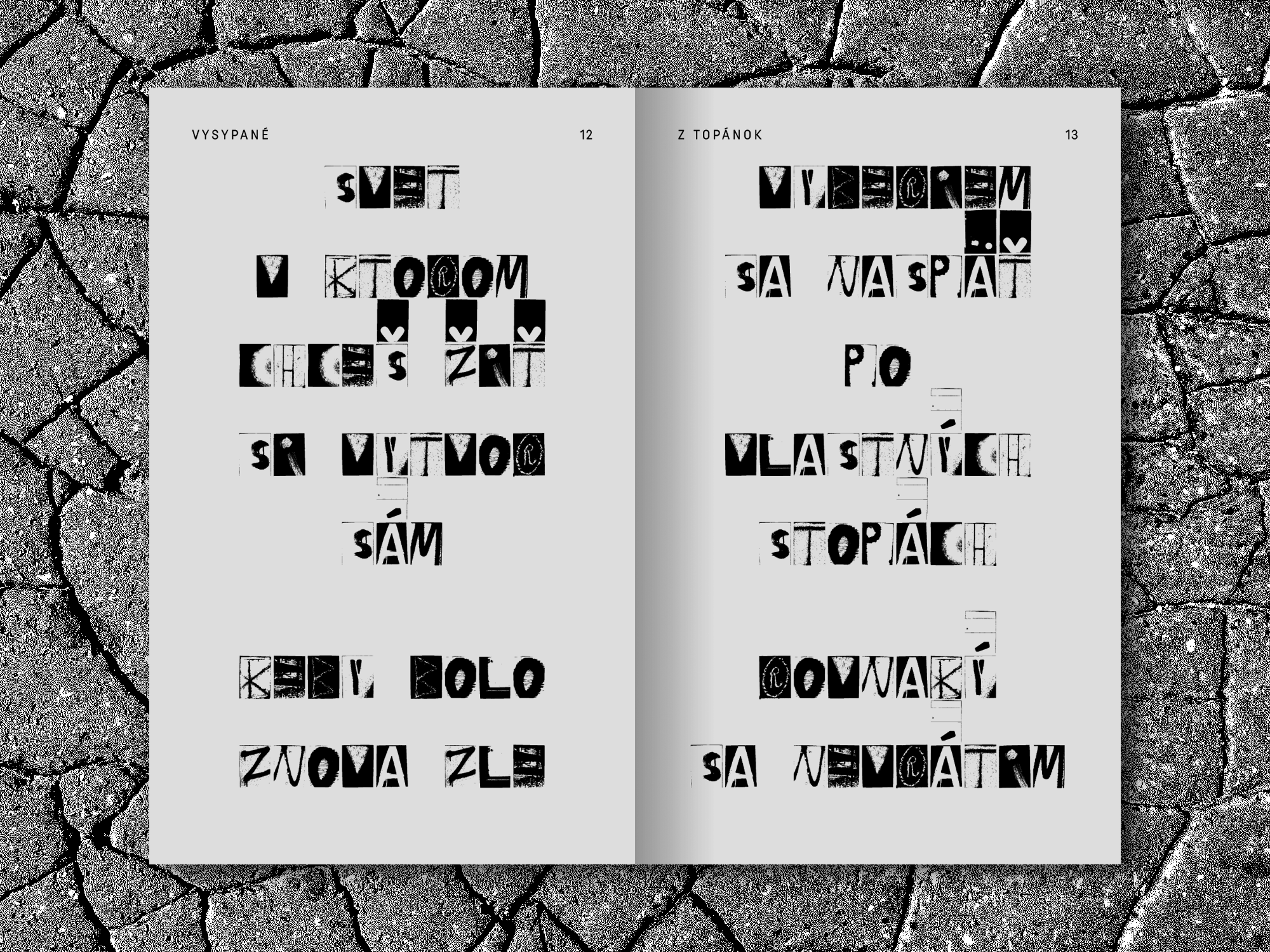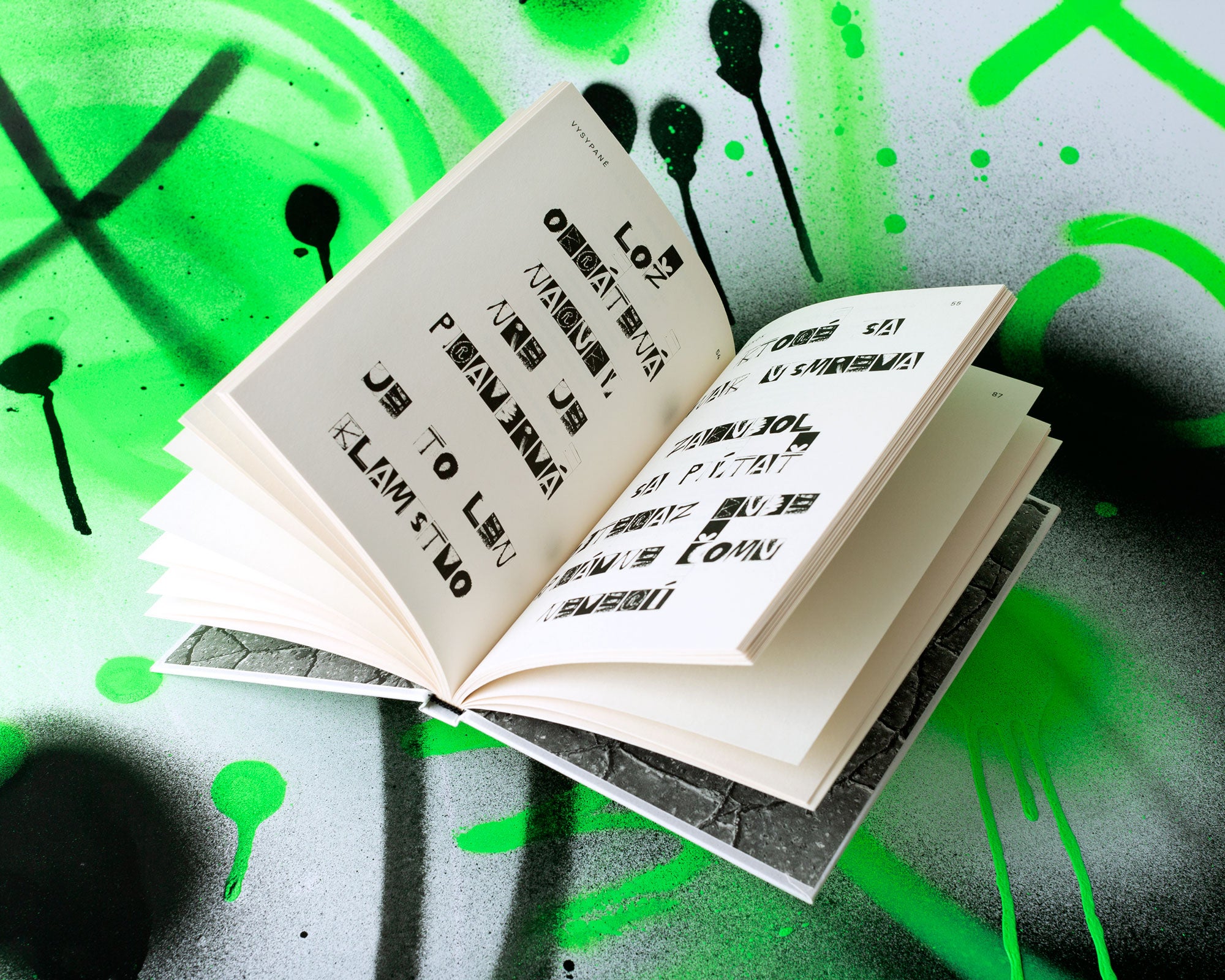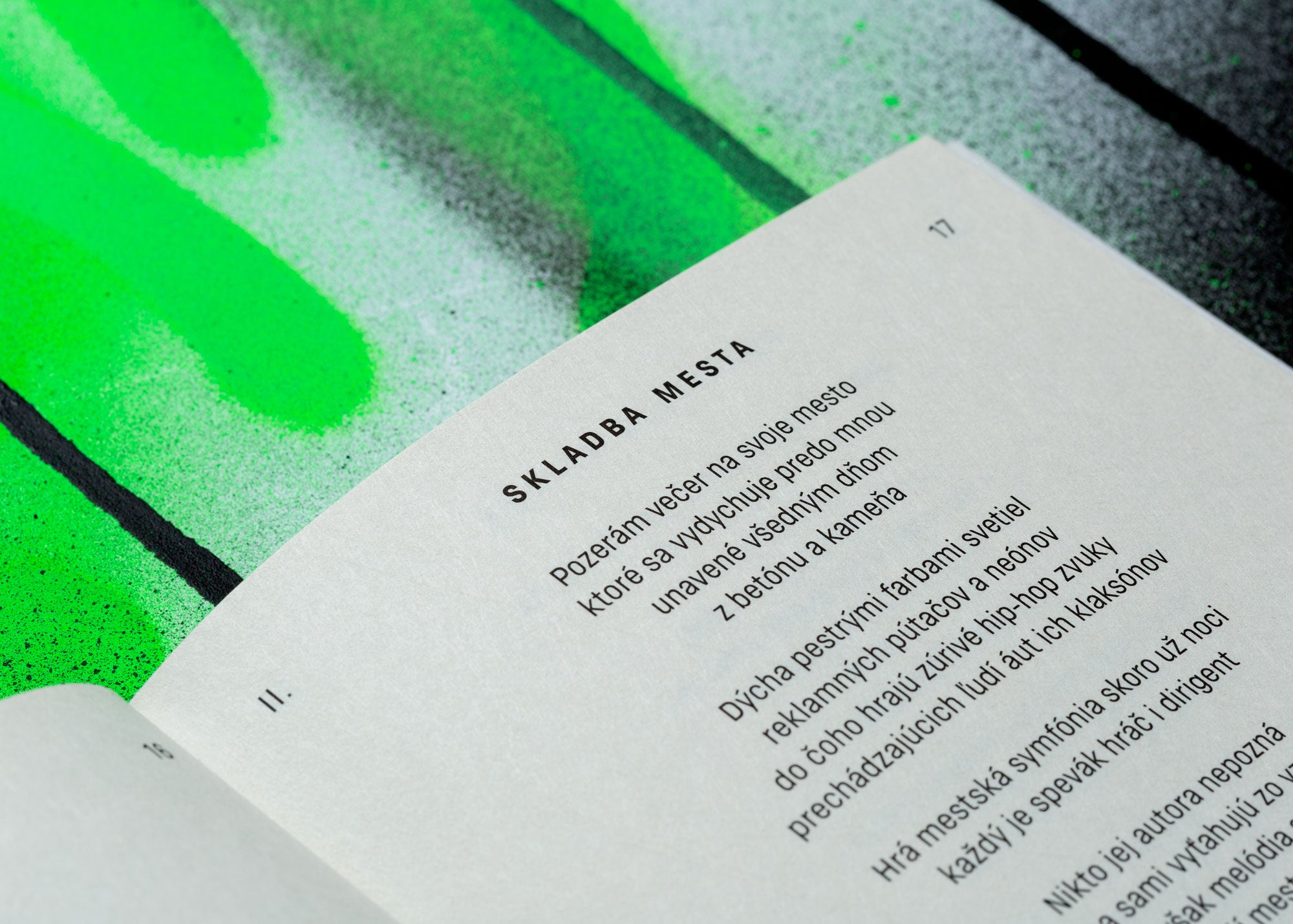
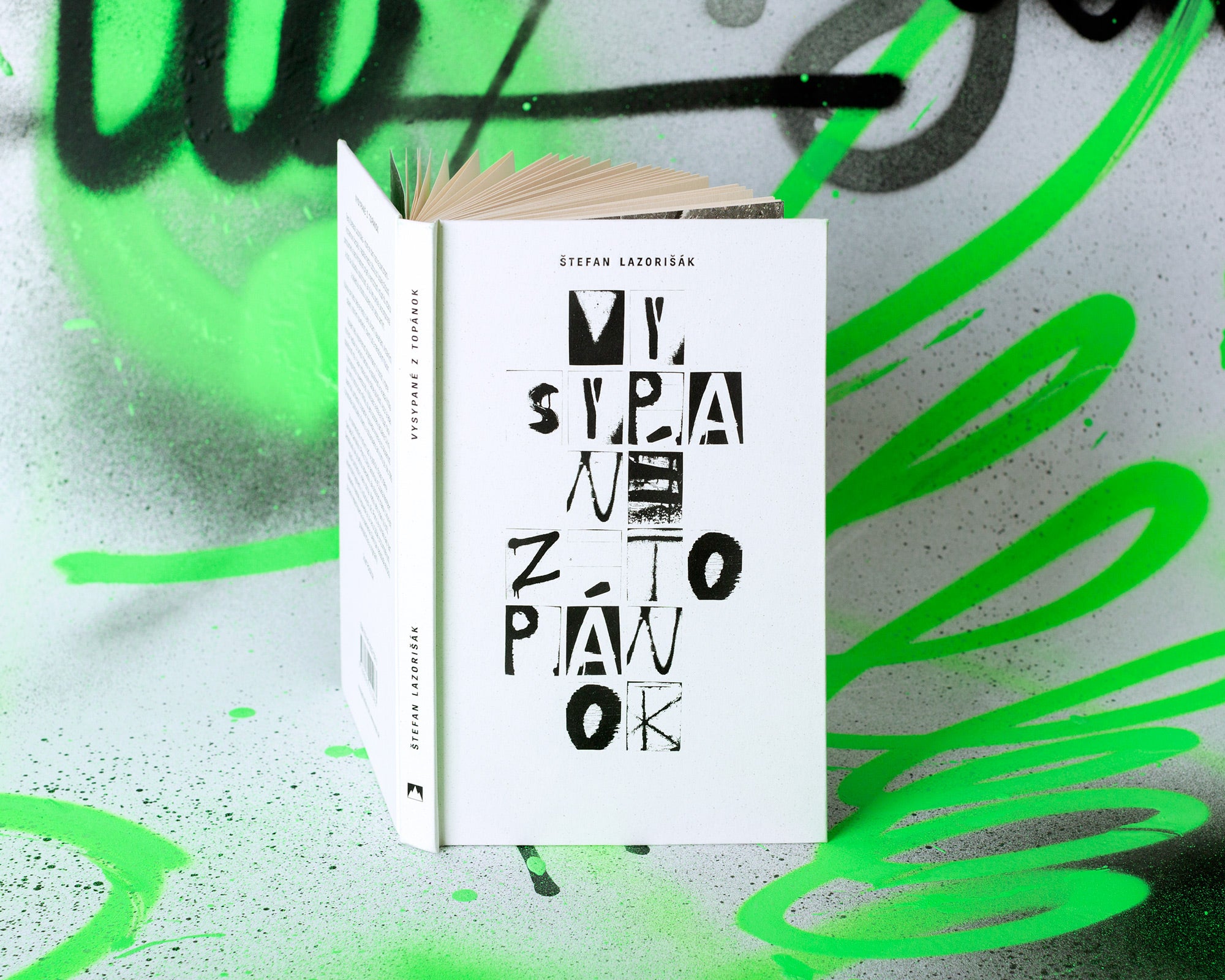
Poeticisms of a Košice based author, Štefan Lazorišák (one of the protagonist of the November ’89 Velvet revolution in Košice), tied to the city space, its streets and its life. The publication’s design is inspired by these associations, using the expressive font Zulice (From the Street), by Zuzana Wohlfahrt Senteliková. The font was created in 2006, by digitalizing authentic fragments from the Komenského Street in Košice and is inspired by the ever-changing visual poetry of the city. In contrast, the book is set in a modest grotesque font Normatica, which was inspired by shop window displays from the period of normalisation in Czechoslovakia (1970s and 1980s). The authenticity of the visual design is supported by using a fragment of a pavement from Košice, used for the endpaper.
Štefan Lazorišák: Vysypané z topánok • cloth binding • 125 × 200 × 14 mm • 96 pages • typefaces: ZUlice, Normatica • published by: Vydavateľstvo Spolku slovenských spisovateľov, Bratislava 2019 • photo credits: Diana Dobrescu • design: © Samuel Čarnoký (2019)